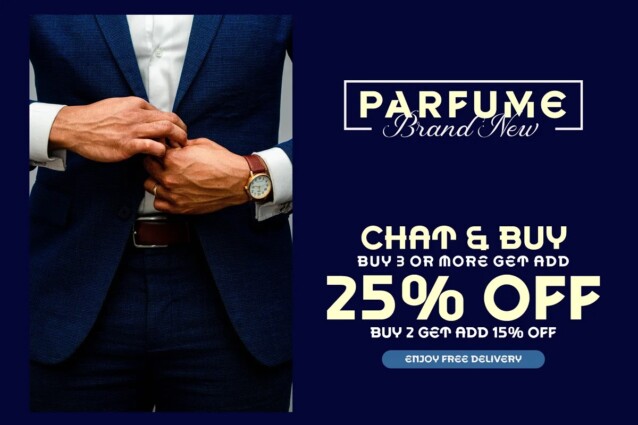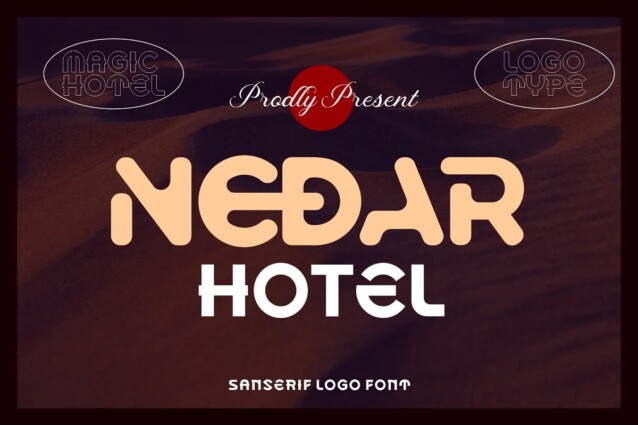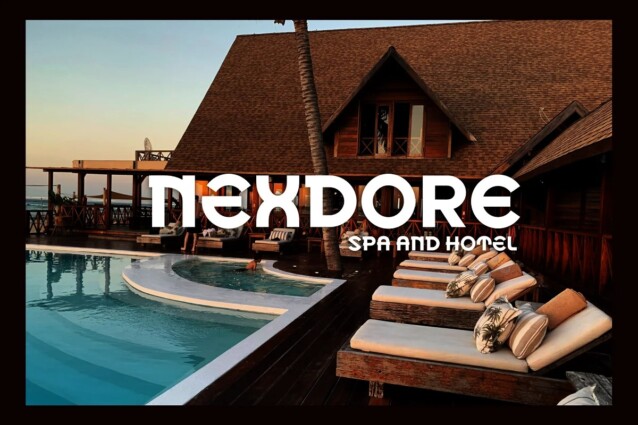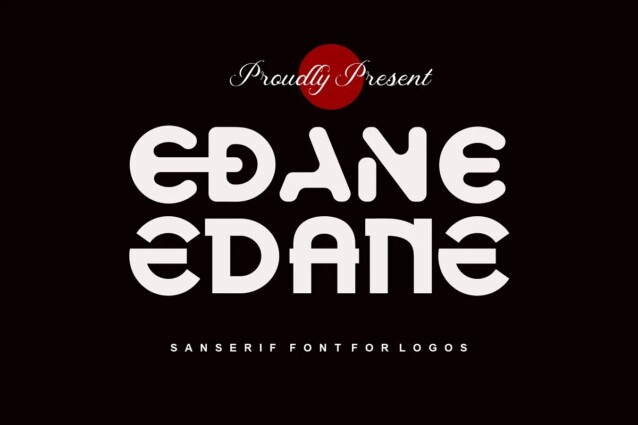
Edane Font is display typeface inspired by circle shapes simple but significant, and defined by its crisp edges and modern touches. It is designed for optimal legibility.
This font is perfect for: bold branding, unique cover designs, stylistic headings, clean packaging, meaningful quotes and so much more.